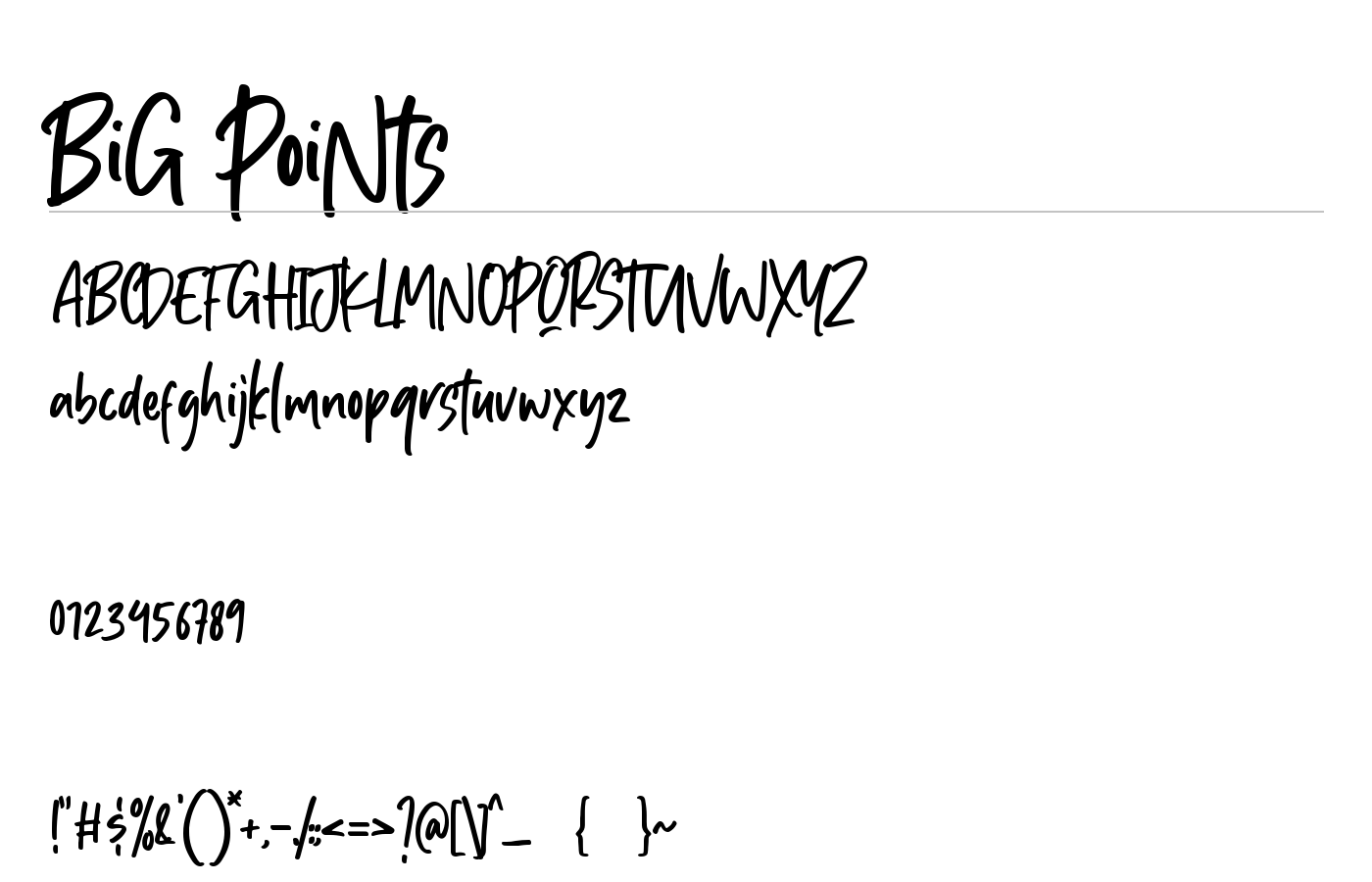
BiG PoiNts is a playful, hand-drawn script font with a casual and energetic vibe. Its tall, narrow letterforms and lively strokes give it a friendly, informal feel that works well for creative projects, children’s designs, and modern branding seeking a personal touch. This font shines in headlines, logos, and expressive display uses where personality and approachability are key.
BiG PoiNts Font
About BiG PoiNts Font
| Font family | BiG PoiNts Font |
| Designer | Muhamad Yusron Billah |
| Trademark | Sronstudio |